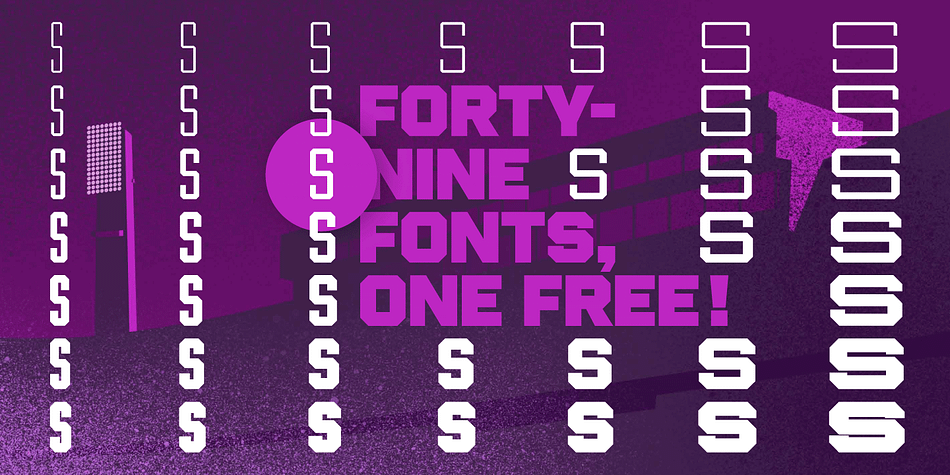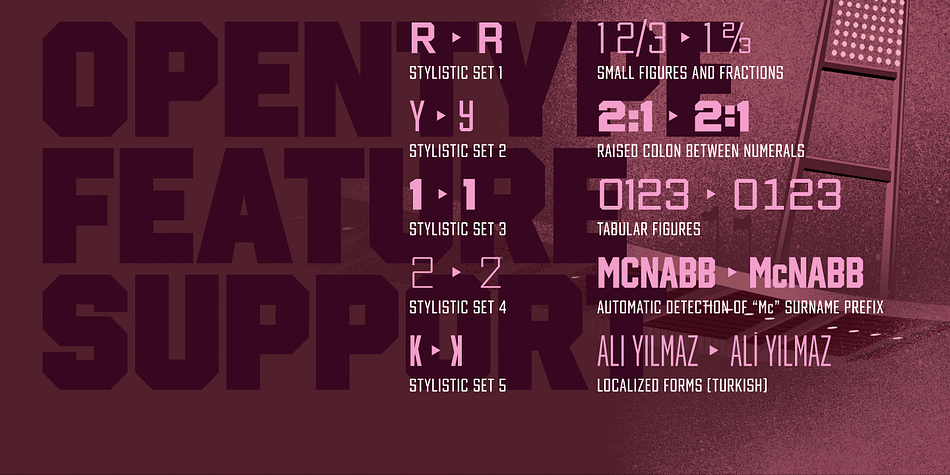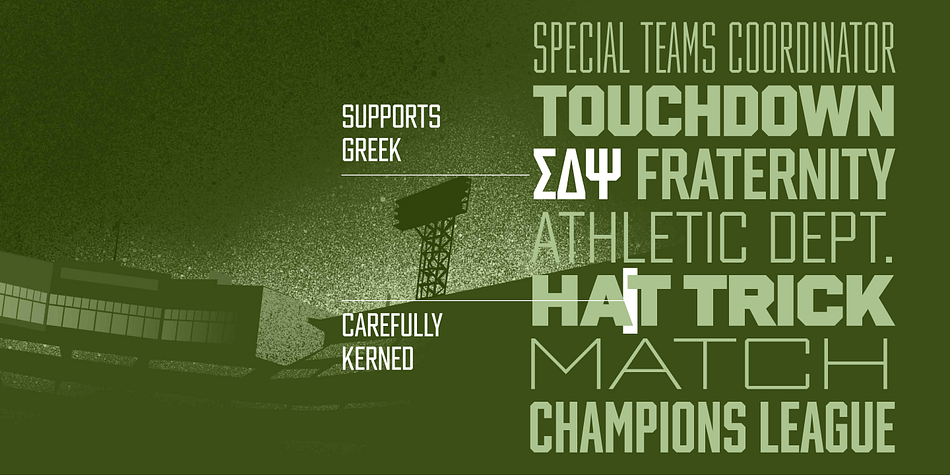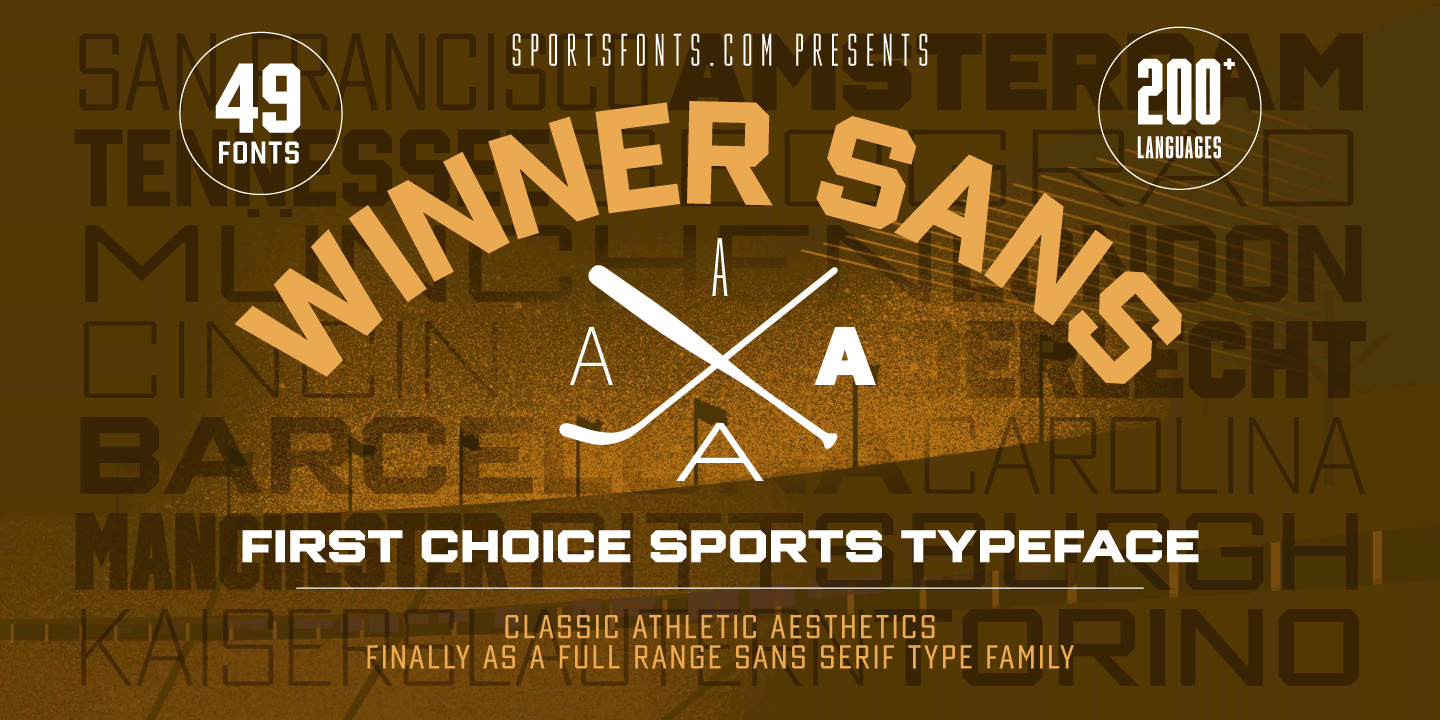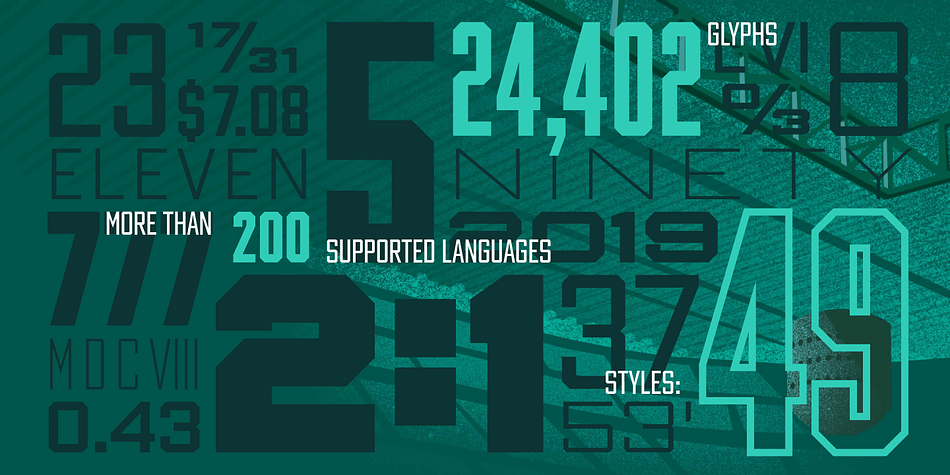
Designed by Christoph Koeberlin and Sven Fuchs, Winner Sans is a display sans font family. This typeface has forty-nine styles and was published by sportsfonts.com.
Winner Sans™ and Winner™—Classic athletic aesthetics, finally as a versatile contemporary super family.
Just when you thought there was nothing left to add to the classic sports design, we lifted it to a whole new level. Whatever you want to set in whatever space, with seven weights in seven widths both with or without serifs, you’ll definitely find the right proportions for it!
Winner Sans supports not only most Latin-based languages but also Greek. Its extensive character set also contains currency signs, arrows, as well as a wide range of numerals from small figures to Roman numerals. Furthermore, its sophisticated OpenType layout features give you access to alternative letter shapes, fractions, tabular figures, and contextual alternates.
With more than 24,000 glyphs in 49 fonts, Winner Sans leaves nothing to be desired. Grab Condensed Regular for free and give it a spin!